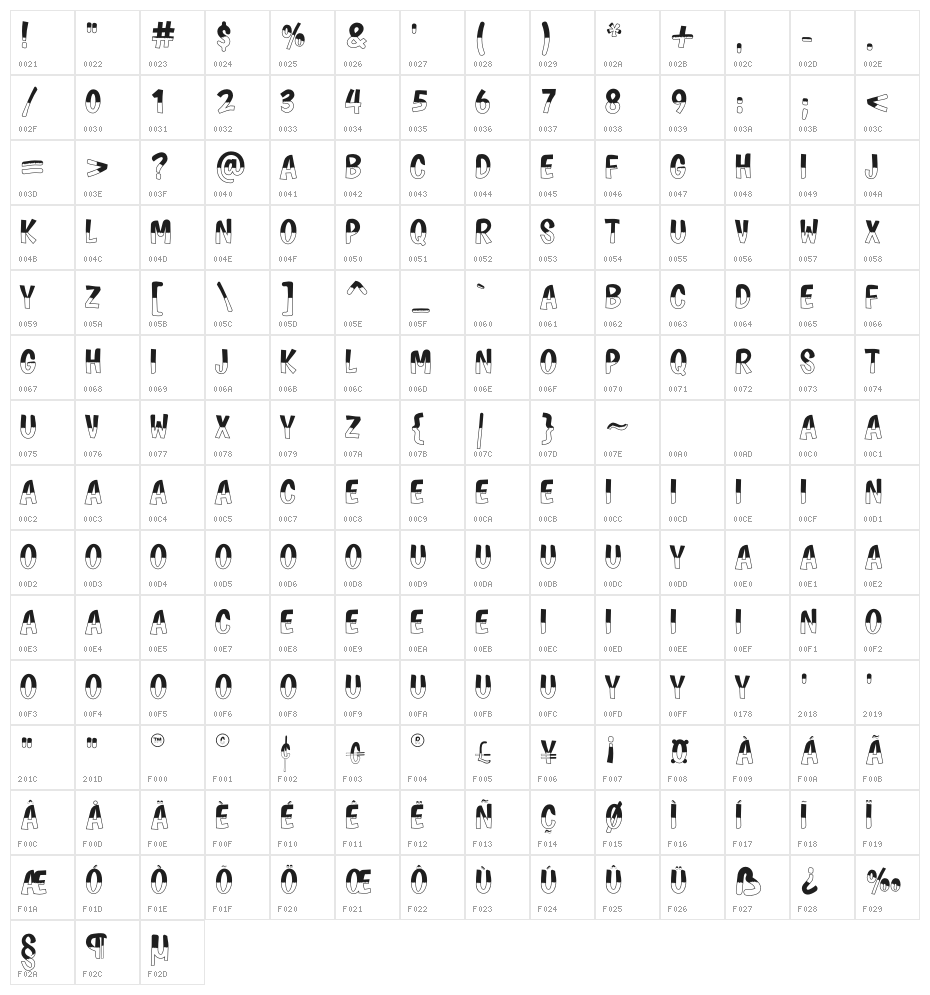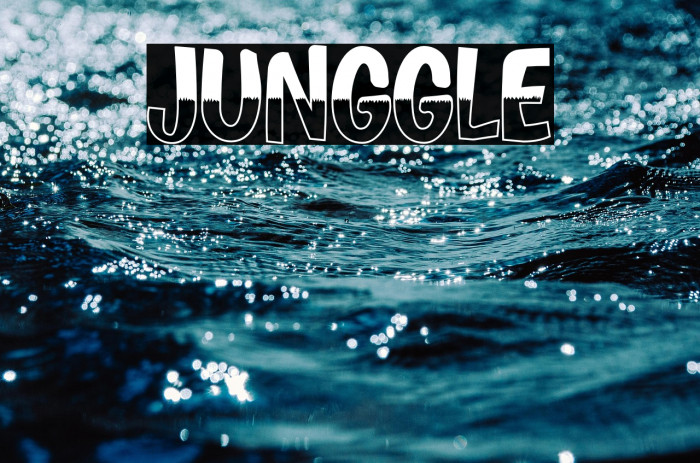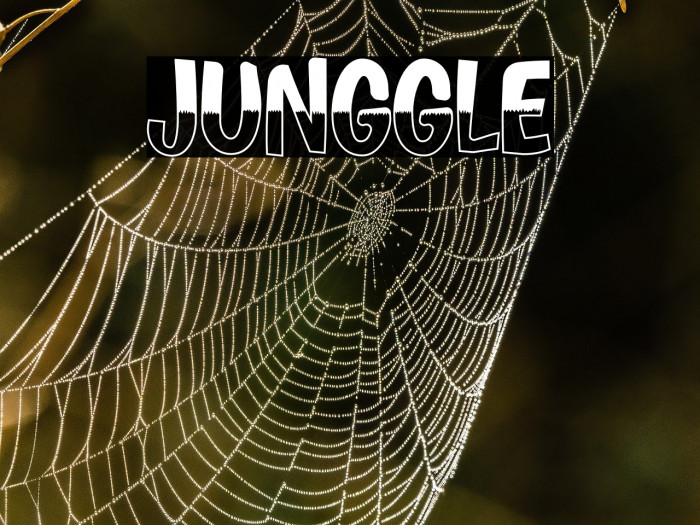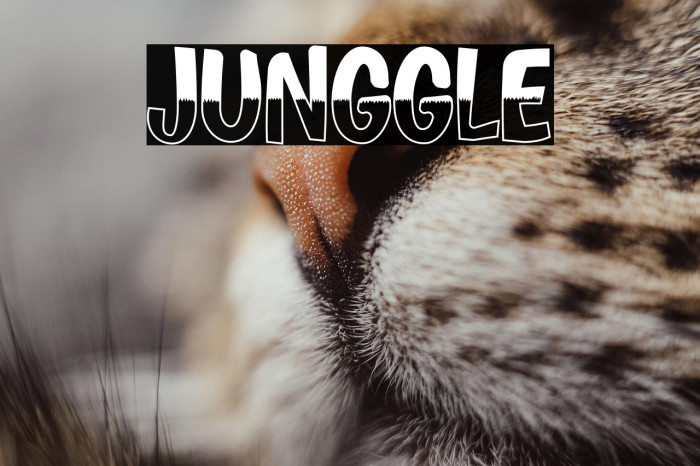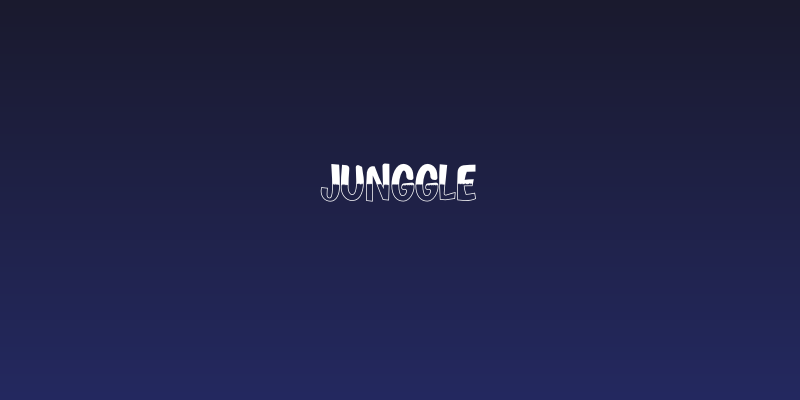
JUNGGLE Font
JUNGGLE Description
This playful and bold font features a unique design with a jagged, zigzag pattern running through the middle of each character, creating a dynamic and energetic appearance. The uppercase and lowercase letters maintain a consistent style, with rounded edges and a slightly condensed form. The numbers and special characters follow the same design principles, ensuring a cohesive look across all elements. The font's distinctive style makes it stand out, ideal for projects that require a fun and eye-catching typeface.
Overall StylePlayful, Energetic
Proposed ProjectsIdeal for children's books, playful branding, event posters, and creative projects that require a fun and energetic typeface.